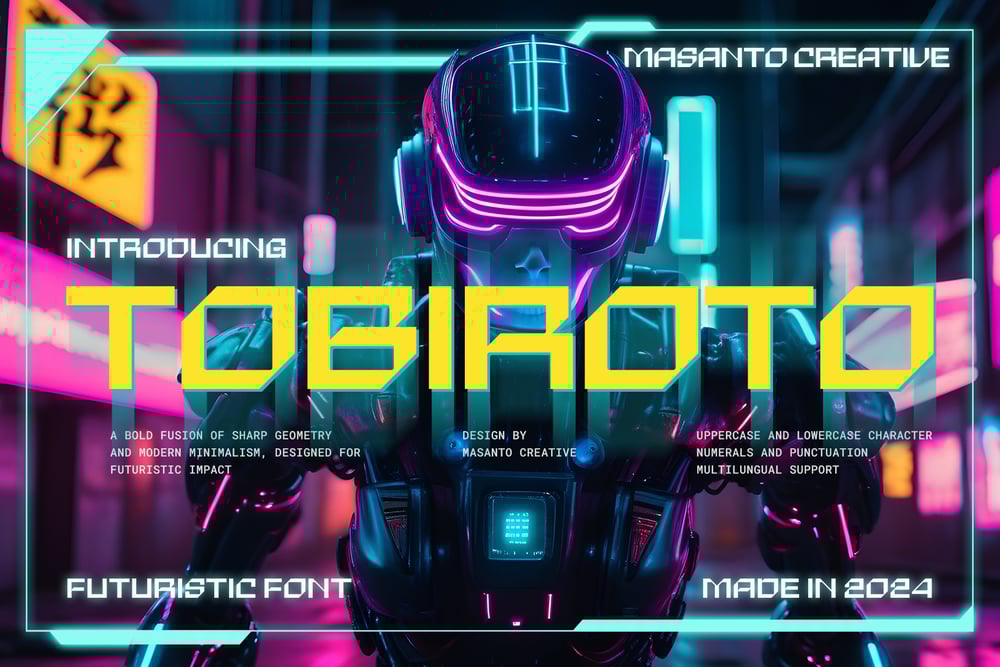
Tobiroto Font Family was designed by Sur Anto and published by Kangfont Studio. Tobiroto contains 1 styles and family package options. Font “Tobiroto” presents a bold and futuristic aesthetic, merging sharp geometric shapes with modern minimalism. It is designed for maximum visual impact, making it an ideal choice for technology-focused projects, sci-fi themes, or anything requiring a sleek, futuristic vibe.